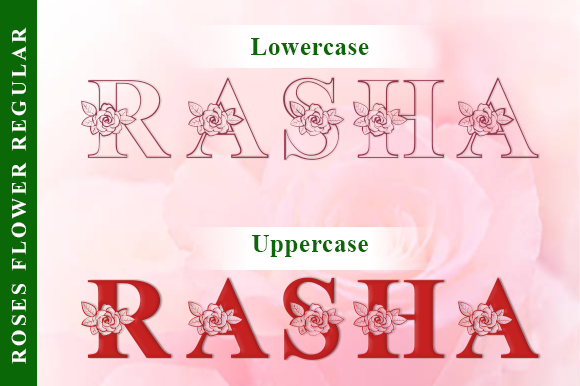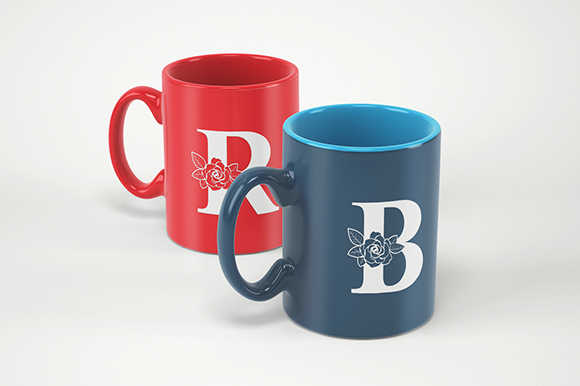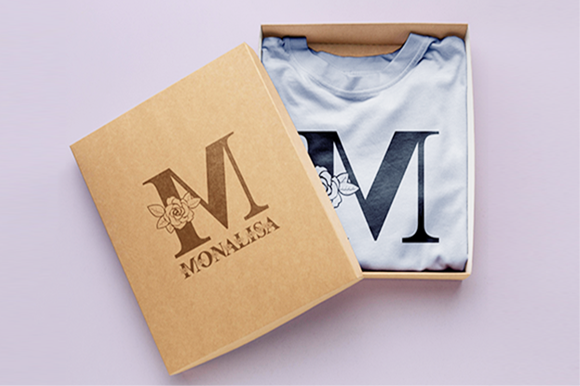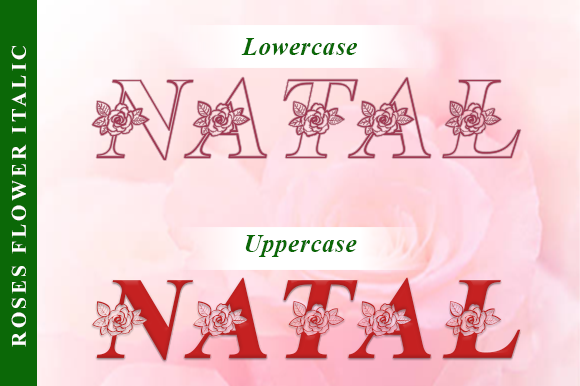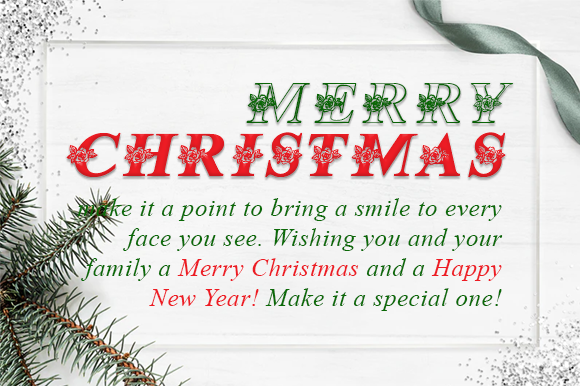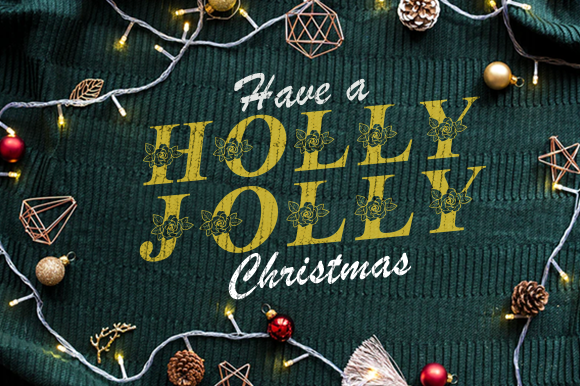
Introduction to Roses Flower Font
Roses Flower is a bold yet elegant decorative font.
Add this romantic and lovely-looking font to each of your love letters, wedding invitations, or favorite design ideas, and you will be astounded by the outcome .